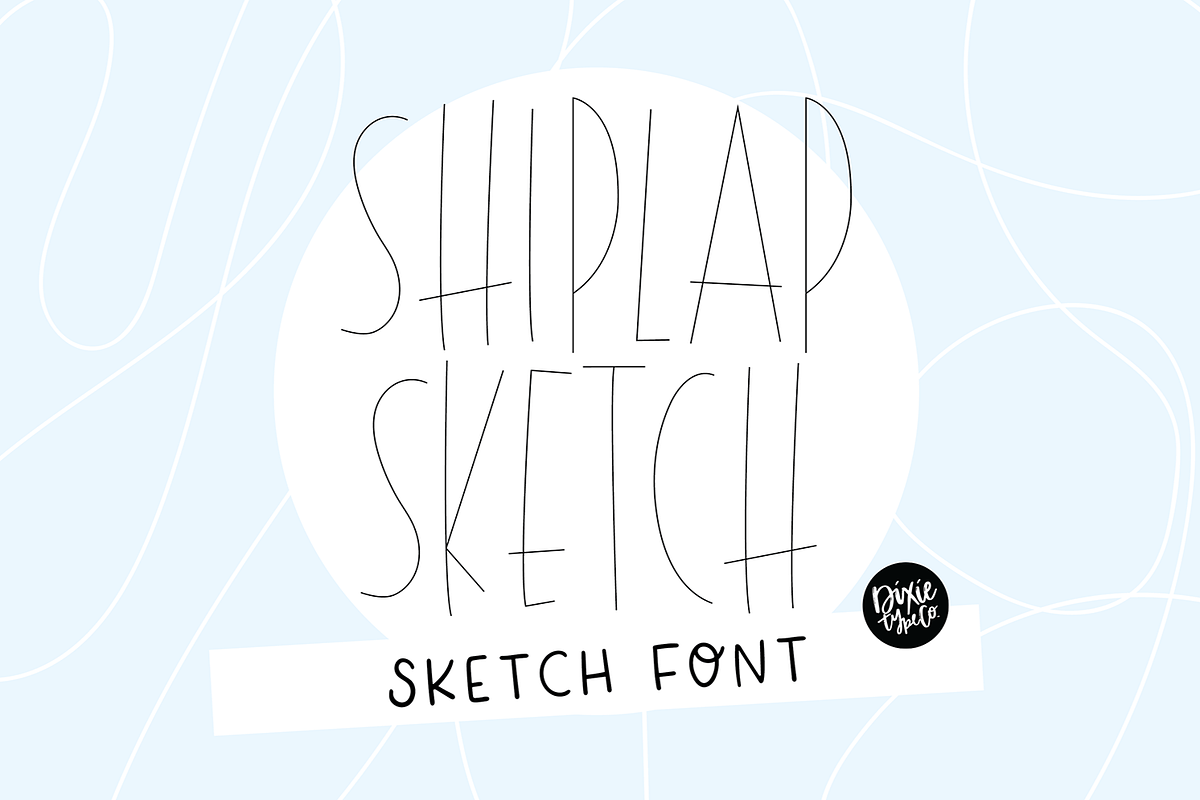
SHIPLAP SKETCH Font Free Download is a rustic and charming typeface with a hand-drawn sketch effect, giving it a unique and artistic feel. This font captures the warmth and personality of traditional design, making it ideal for rustic branding, home decor projects, logos, posters, and any design that requires a handmade, cozy vibe.
With its rough edges and playful, sketch-like strokes, SHIPLAP SKETCH Font Free Download brings character and authenticity to your typography. Whether you’re designing for a craft brand, creating farmhouse-inspired decor, or making social media content, this font adds a touch of warmth and creativity.
Add a handmade, cozy touch to your designs with SHIPLAP SKETCH Font Free Download, and give your typography an organic, personal feel. Perfect for creatives looking for a rustic, charming font with a creative, hand-drawn style.